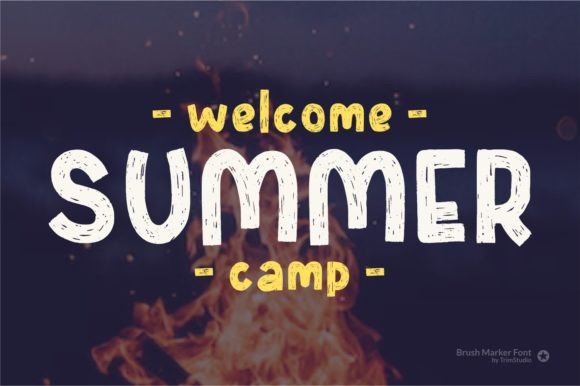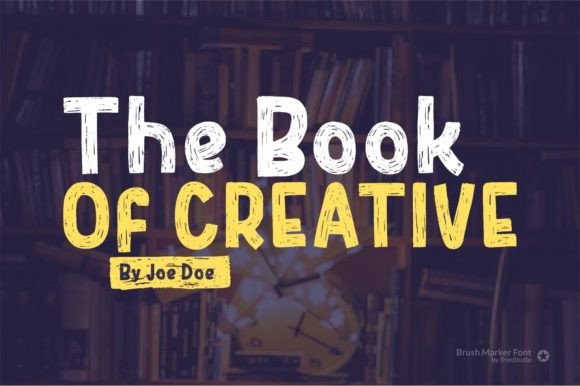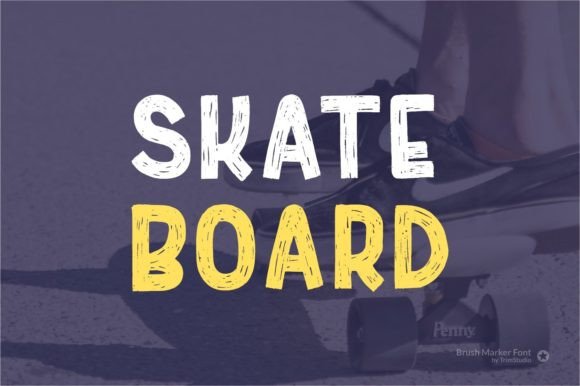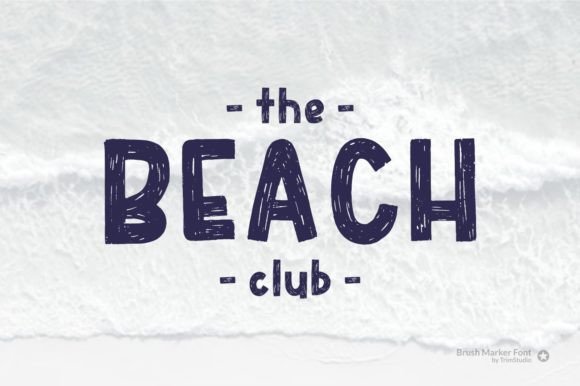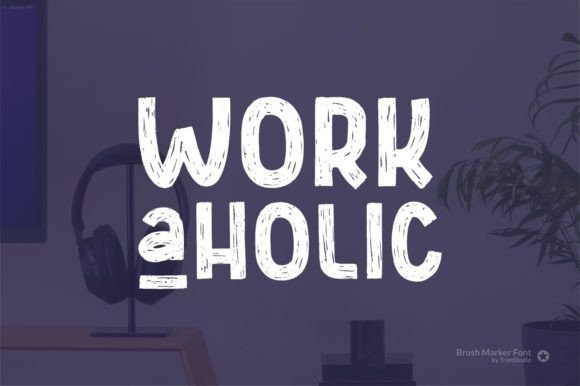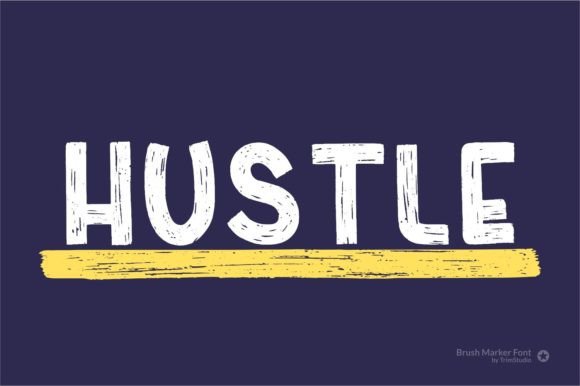
Introducing Brush Marker Font: The Ultimate Tool for Creative Projects
Are you tired of using the same old fonts for your creative projects? Look no further! Brush Marker Font is here to revolutionize the way you approach design. This cool and modern brush display font is perfect for crafters, designers, and anyone looking to add a personal touch to their work. With Brush Marker Font, you can add a unique and artistic flair to your projects, making them stand out from the crowd.
What is Brush Marker Font?
Brush Marker Font is a digital font that mimics the look of brush markers or brush pens. It has a distinctive, hand-drawn feel that gives your text a personal and creative touch. The font is designed to be highly versatile, making it suitable for a wide range of projects, from graphic design and branding to scrapbooking and DIY crafts.
Key Features of Brush Marker Font
- Unique and Artistic: Brush Marker Font has a one-of-a-kind, hand-drawn style that adds a touch of personality to your projects.
- Highly Versatile: The font is suitable for a wide range of projects, from digital designs to print materials.
- Customizable: You can adjust the font size, color, and style to fit your project’s needs.
Benefits of Using Brush Marker Font
So, why should you choose Brush Marker Font for your projects? Here are just a few benefits:
- Adds a Personal Touch: Brush Marker Font gives your text a personal and creative touch, making your projects stand out from the crowd.
- Increases Visual Appeal: The font’s unique, hand-drawn style adds visual interest to your projects, making them more engaging and attention-grabbing.
- Enhances Brand Identity: Brush Marker Font can help you create a consistent brand identity across all your marketing materials.
Project Ideas Using Brush Marker Font
Brush Marker Font is perfect for a wide range of projects, including:
- Graphic Design: Use Brush Marker Font to create eye-catching logos, posters, and brochures.
- Branding: Add a personal touch to your brand identity with Brush Marker Font.
- Scrapbooking: Use Brush Marker Font to add a creative touch to your scrapbook pages.
- DIY Crafts: Add a personal touch to your DIY crafts, such as handmade cards or gift tags.
In conclusion, Brush Marker Font is a cool and modern brush display font that can add a unique and artistic touch to your projects. With its highly versatile design and easy-to-use format, it’s perfect for crafters, designers, and anyone looking to add a personal touch to their work. So why wait? Download Brush Marker Font today and see the amazing outcome for yourself!